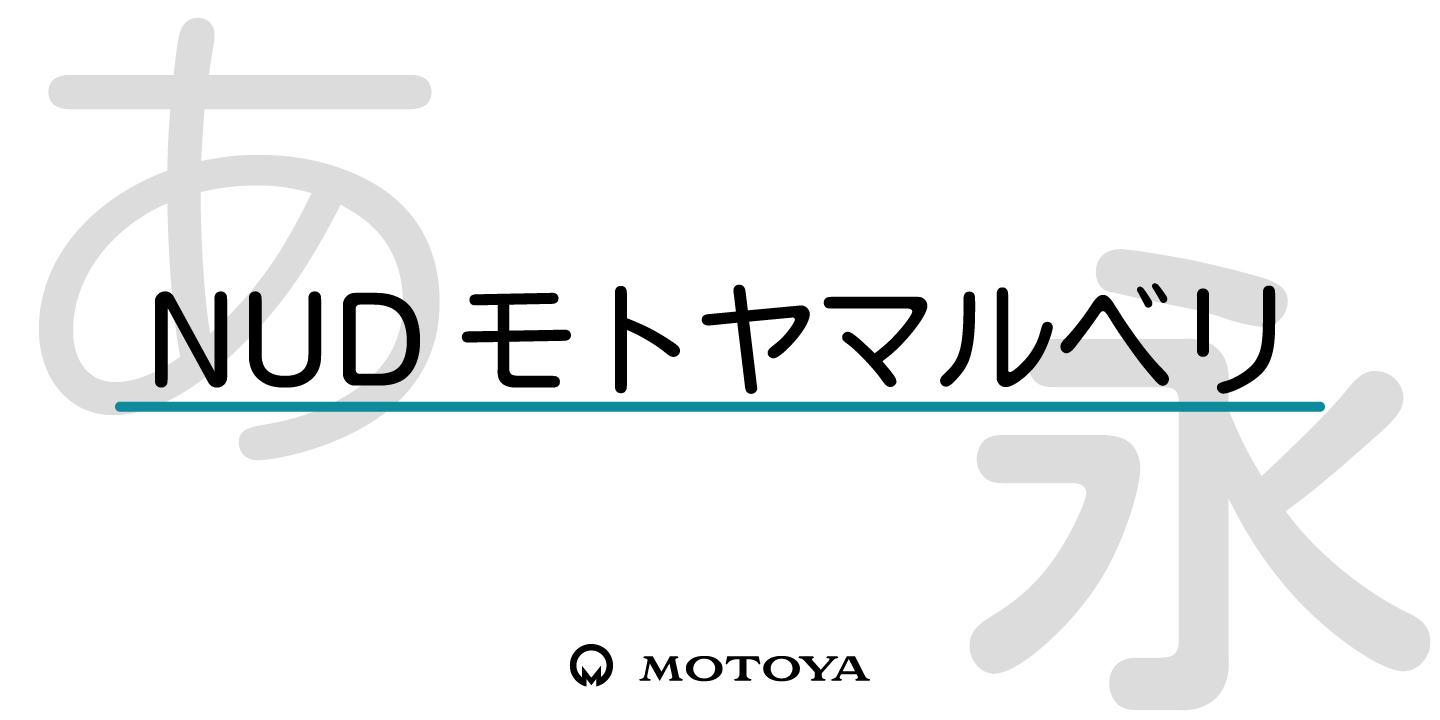
Nud Motoya Maru Font is perfect for Japanese kawaii branding, cute character designs, children's educational materials, playful app interfaces, friendly product packaging, manga comic lettering, anime merchandise designs, Japanese pop culture graphics, youth-oriented campaigns, cheerful social media content, and any project that requires adorable rounded character with Japanese cute culture sophistication.
What makes Nud Motoya Maru Font exciting is its delightful embodiment of Japanese kawaii culture and rounded design aesthetics through soft, friendly letterforms that capture the essence of Japanese cuteness and approachable design philosophy. This charming typeface features rounded characteristics with kawaii-inspired proportions that convey warmth, friendliness, and the playful spirit of Japanese pop culture. The font's maru character adds instant cute credibility and Japanese cultural appeal to any design, making it perfect for brands celebrating kawaii aesthetics and friendly user experiences.
Nud Motoya Maru Font comes in multiple font families including Regular, Bold, Light, Condensed, Kawaii, and Rounded variations, offering designers comprehensive options to create cute compositions and achieve the perfect Japanese aesthetic for kawaii-focused design projects.
Whether you're developing kawaii brand identity, creating Japanese cultural materials, or designing cute character campaigns, Nud Motoya Maru Font Free Download provides the ideal solution for projects demanding authentic rounded character and Japanese cute sophistication. This friendly typeface excels in both print and digital applications where approachable presence is essential, ensuring your designs communicate Japanese warmth and kawaii cultural values. The rounded character and Japanese styling of Nud Motoya Maru Font make it an indispensable tool for designers who prioritize kawaii culture, Japanese aesthetics, and friendly rounded design in their typographic selections.